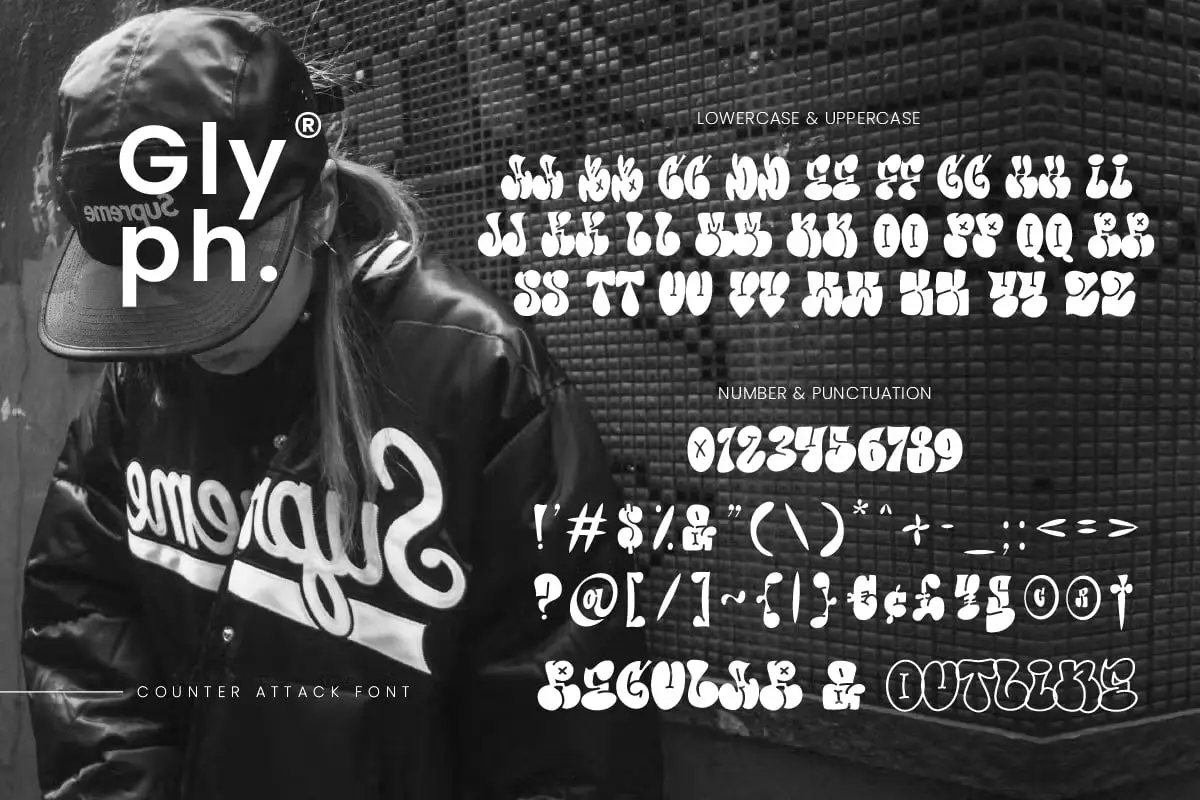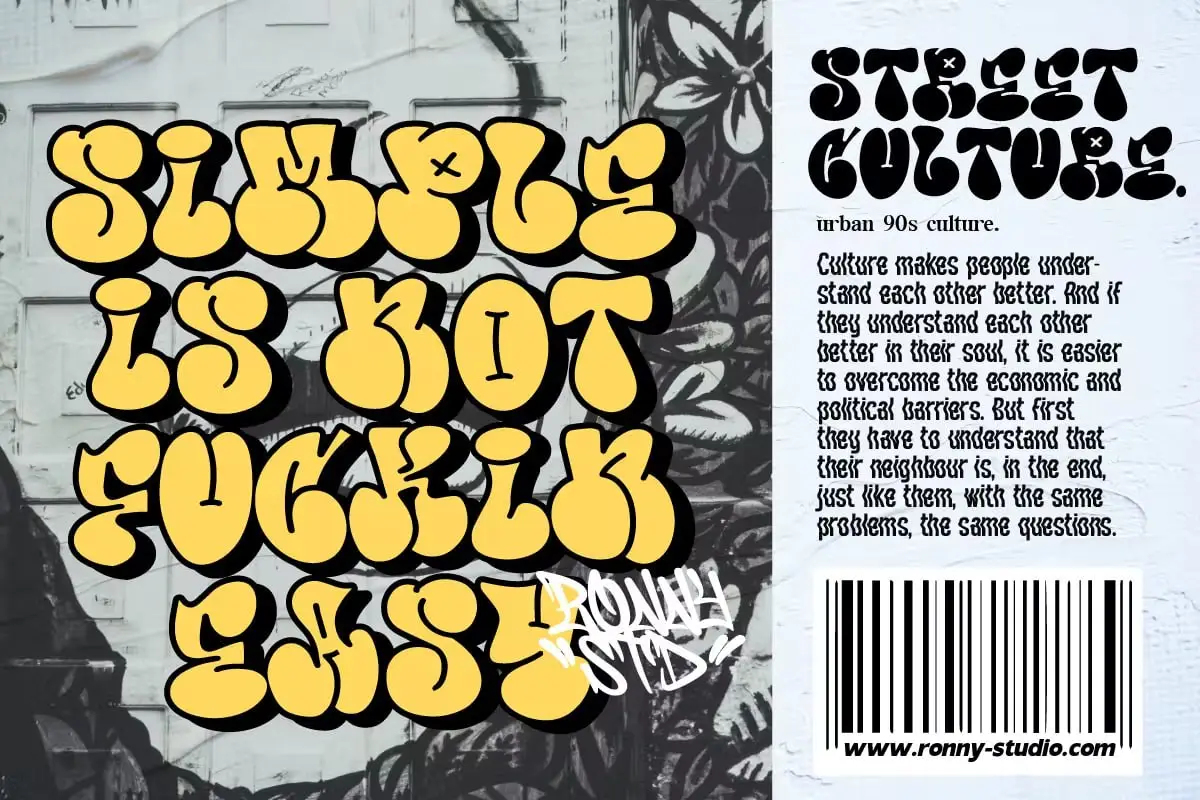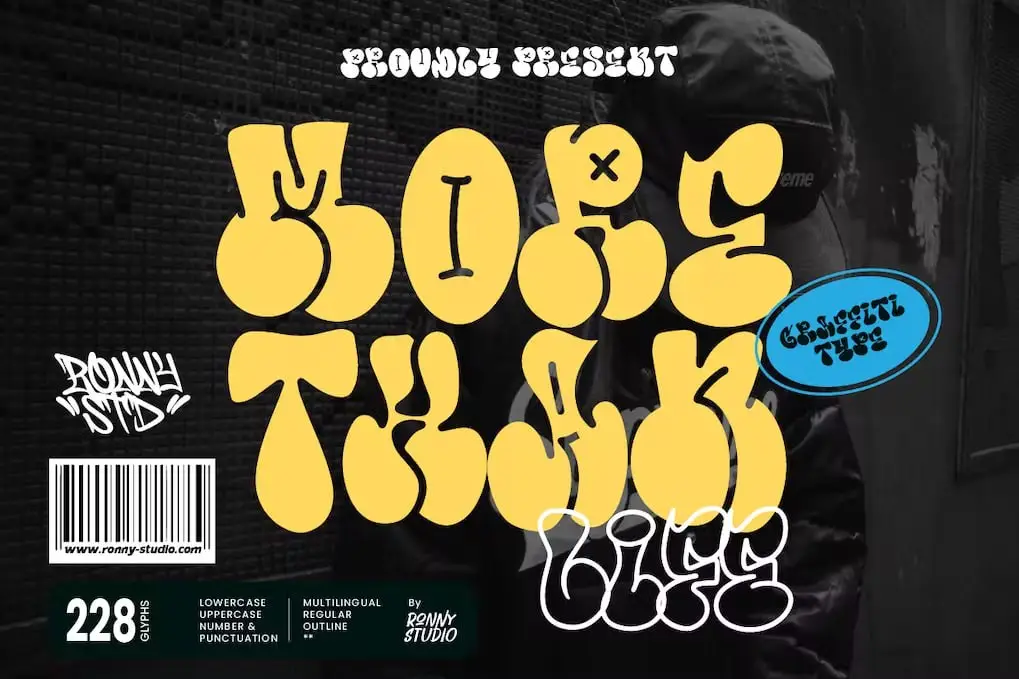
More Than Life-Bubble Graffiti Tag Font
The More Than Life-Bubble Graffiti Tag Font is a vibrant and playful typeface that captures the essence of street art. With its bold, rounded letters and unique graffiti style, this font is perfect for projects that require a touch of urban flair.
• Stylish graffiti-inspired design
Ideal for branding, logos, posters, and any creative projects that aim to convey a youthful and energetic vibe.